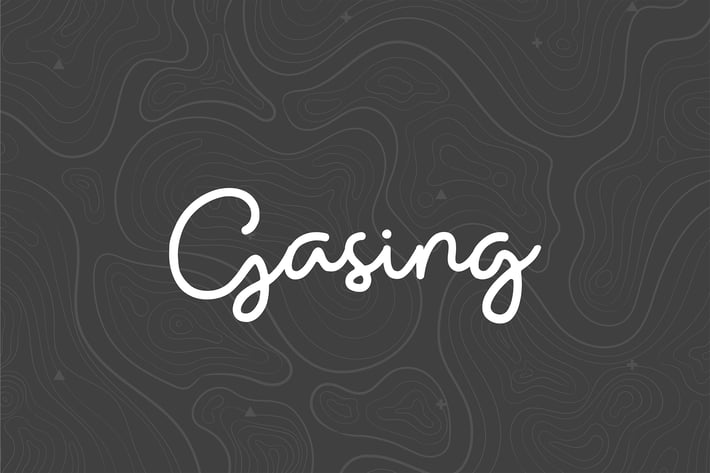
Gasing Monoline Script Font
Gasing is a neat, cute and readable handwritten font. This gentle font will look gorgeous on a variety of design ideas. It will add a joyful and romantic touch to each of your projects!